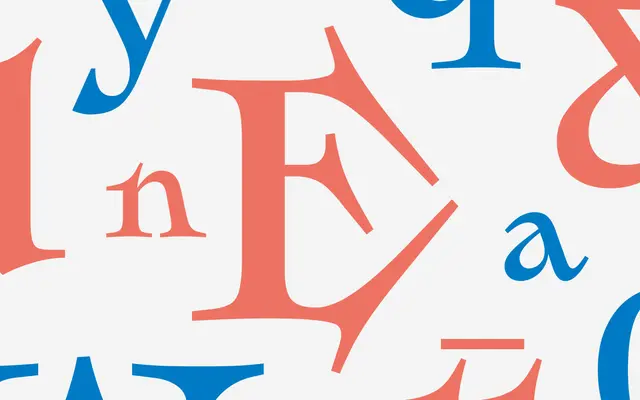
Jazzier
Dalton Maag · Ignacio Casco Guijarro · 2021
An oldstyle serif played for surprise, drawn for book covers, posters, merchandise and packaging.
A display serif by Ignacio Casco Guijarro that reads like a caricature of an oldstyle, leaning into typographic surprises and unexpected charm. Dalton Maag pitch it at book covers, posters, merchandise and packaging, where the family's character does more work than a neutral serif could. Best at display sizes.
Dalton Maag classifies Jazzier as a caricature of an oldstyle serif typeface, packed with typographic surprises and unexpected charm.